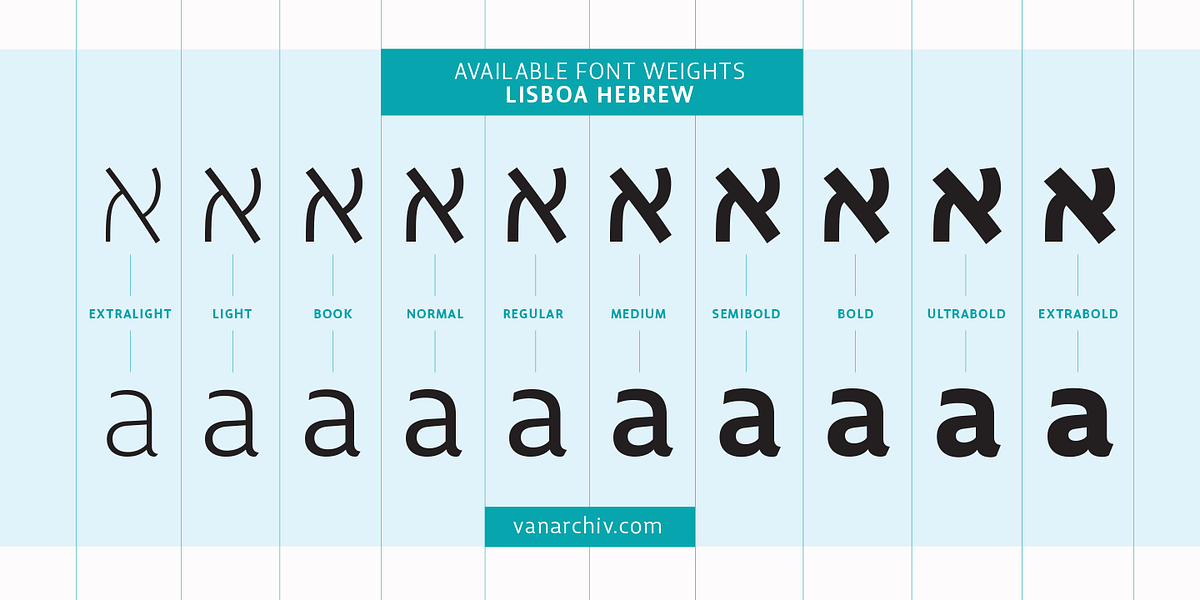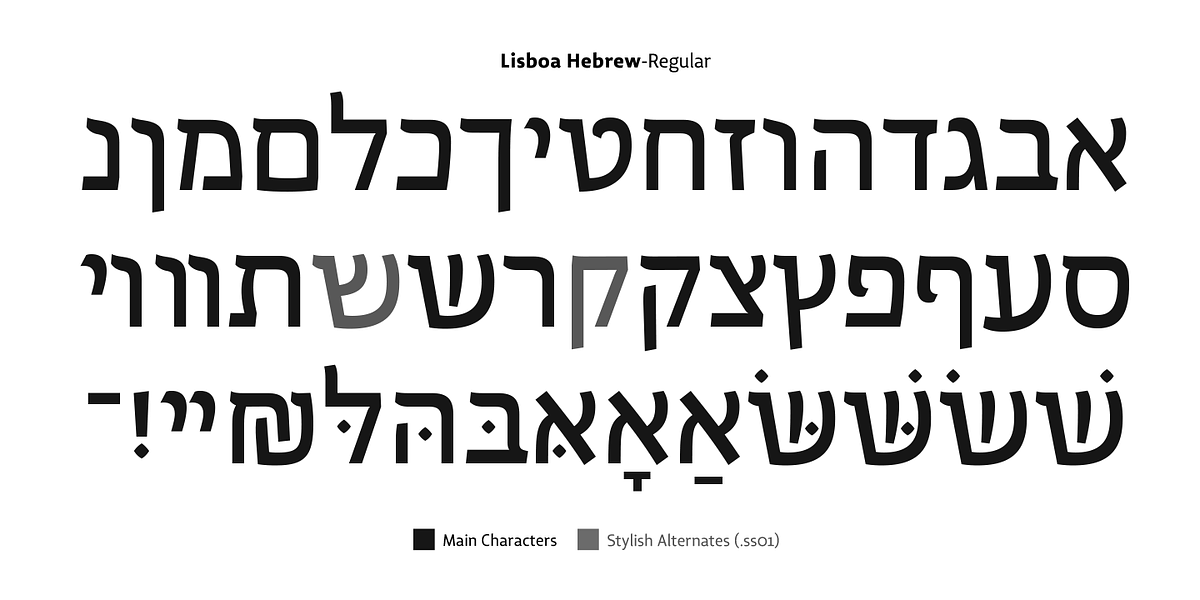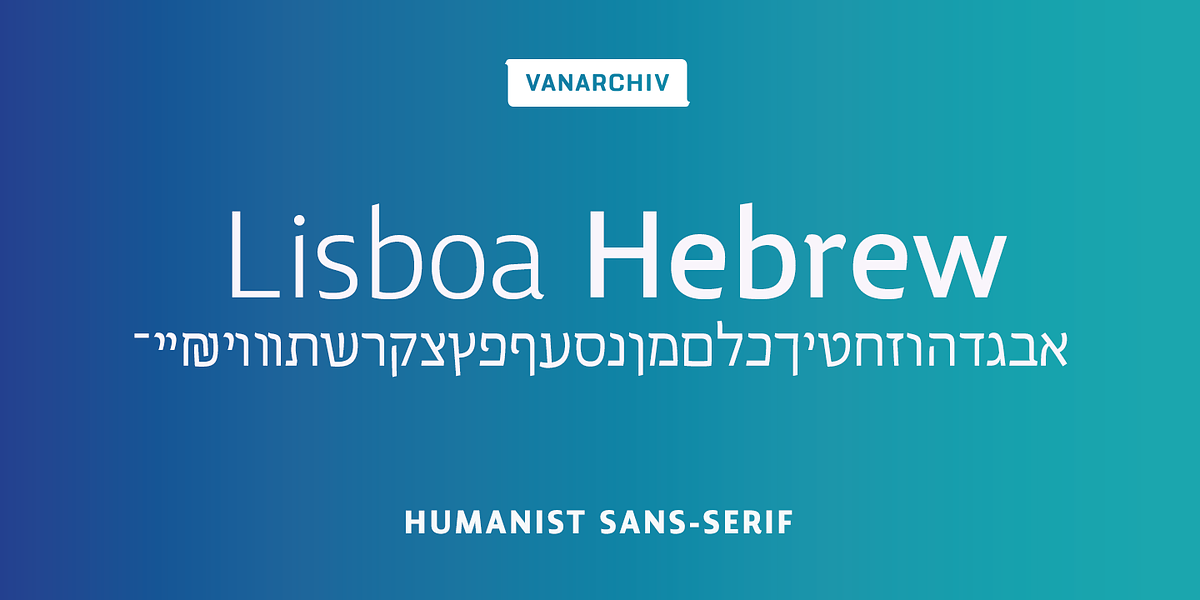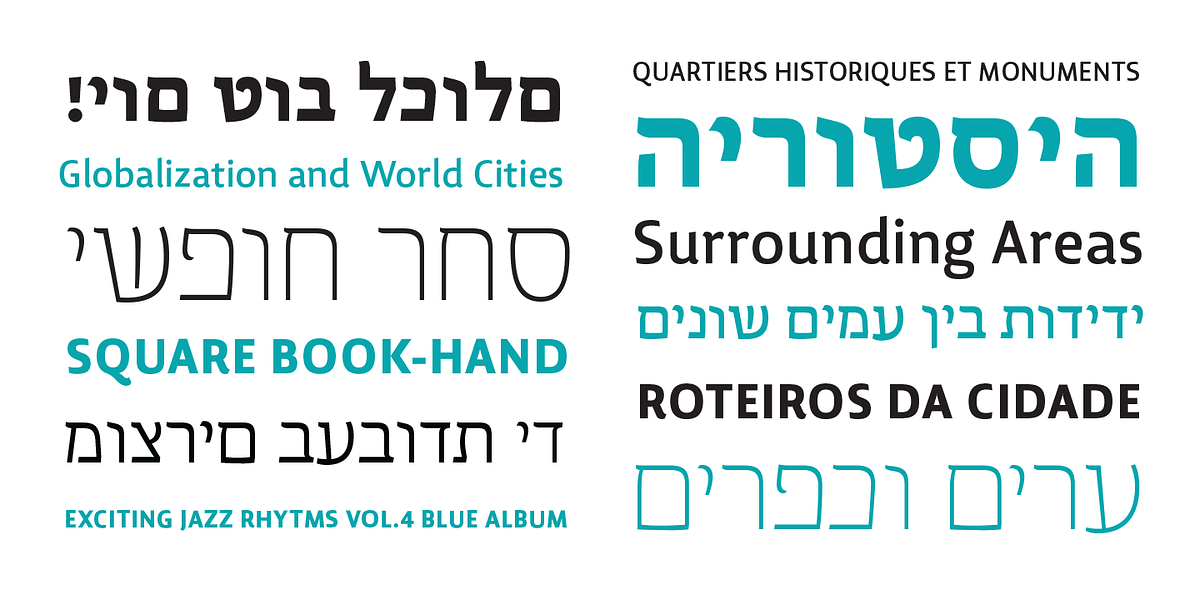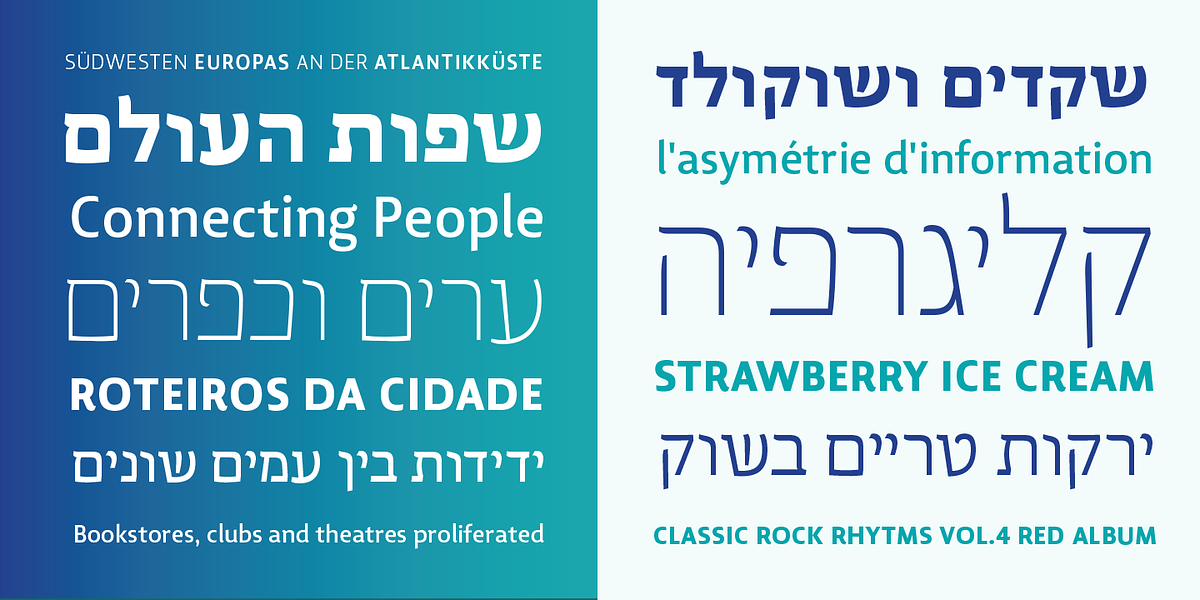
Lisboa Hebrew
Lisboa Hebrew is a humanist sans-serif typeface inspired by Sephardic calligraphy. It features reverse contrast and calligraphic terminals, echoing the proportions of Sephardic script. The font includes small caps characters and Latin transliteration characters.